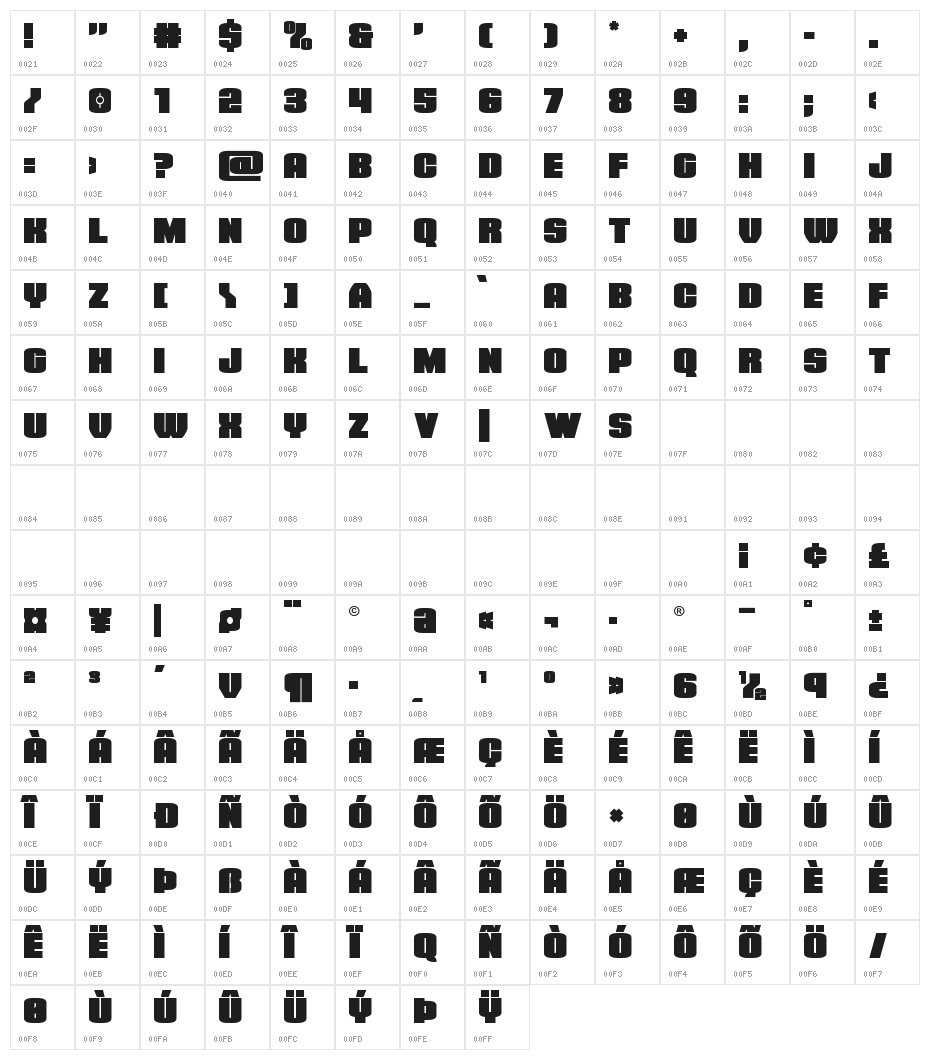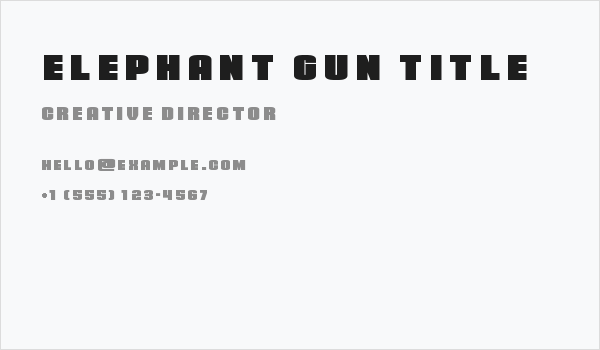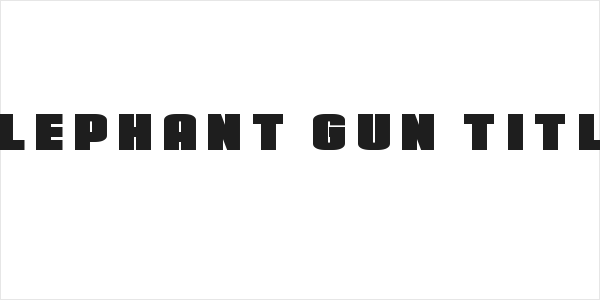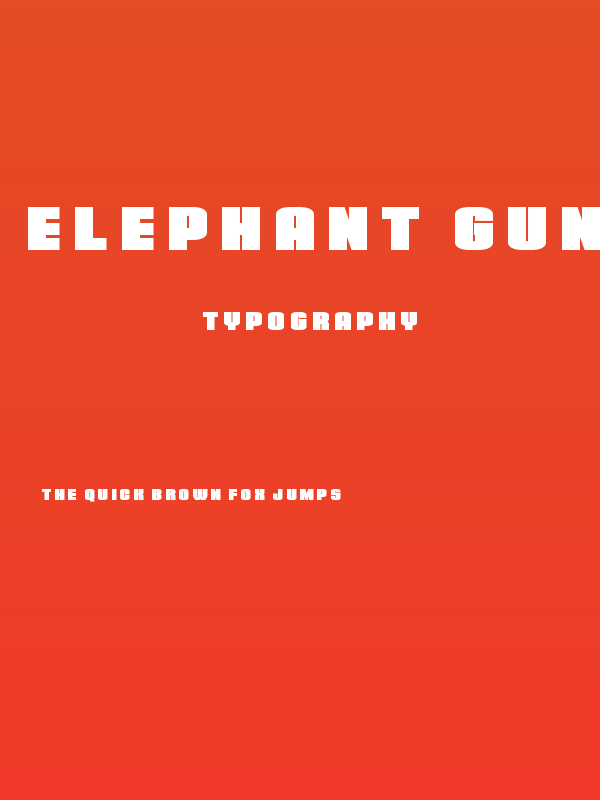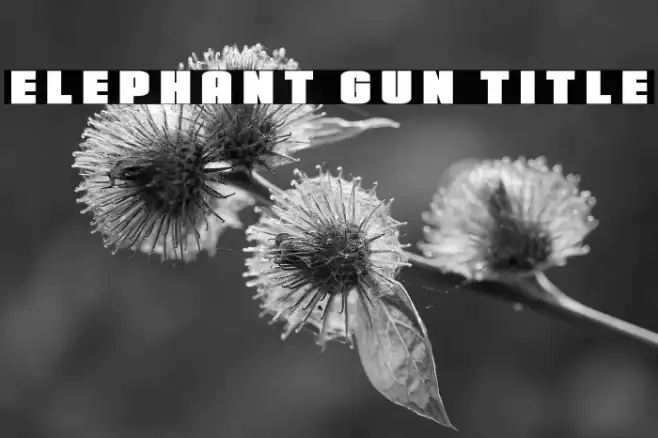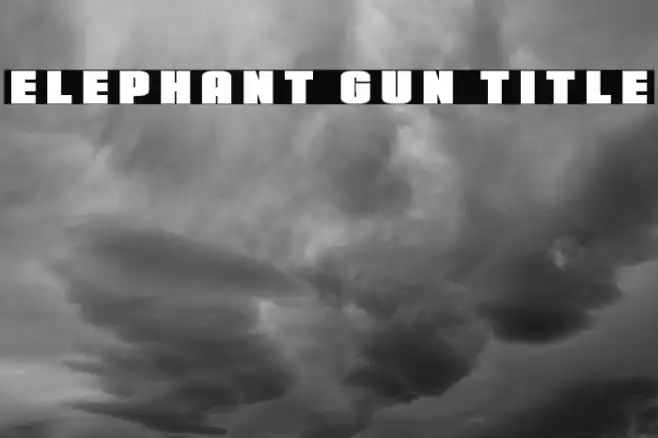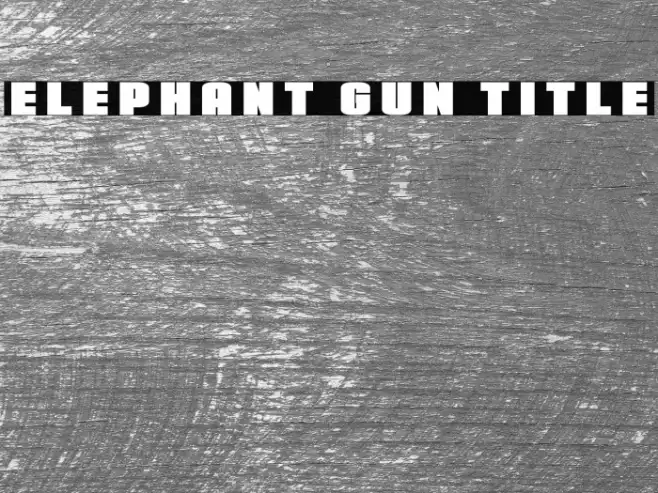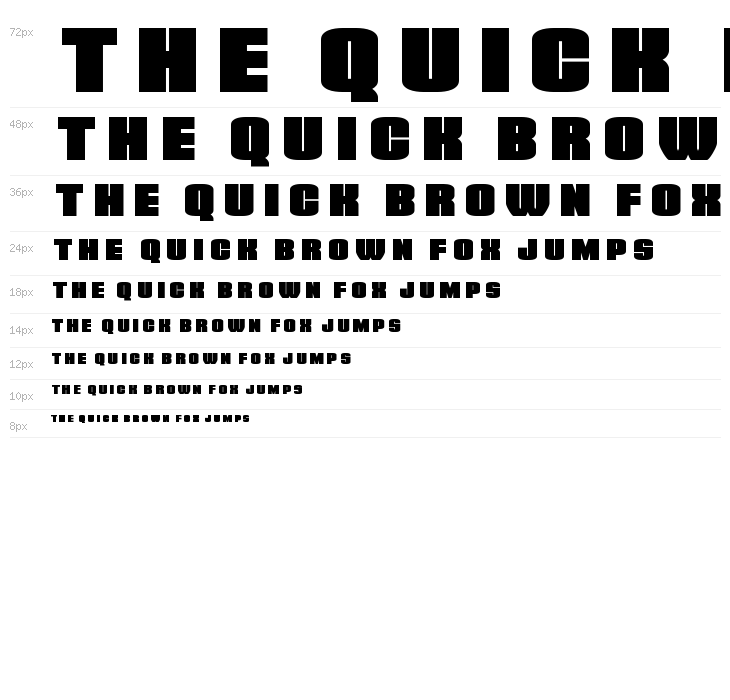
Elephant Gun Title Font
Elephant Gun Title Description
This bold and impactful font features thick, blocky letters with a strong presence. The characters are uniformly wide, creating a sense of stability and strength. The uppercase letters are particularly robust, with minimal contrast in stroke thickness, giving them a solid and cohesive appearance. The numbers and special characters maintain this bold style, ensuring consistency across all elements. The font's design is straightforward yet powerful, making it ideal for attention-grabbing headlines or titles. Its geometric shapes and clean lines contribute to a modern and assertive look.
| Proposed Projects | Ideal for posters, headlines, branding, and any project requiring a strong visual impact. |